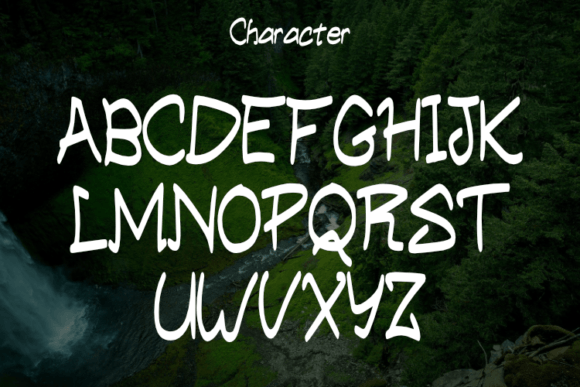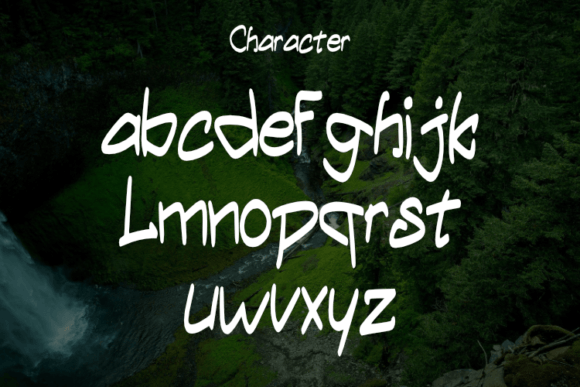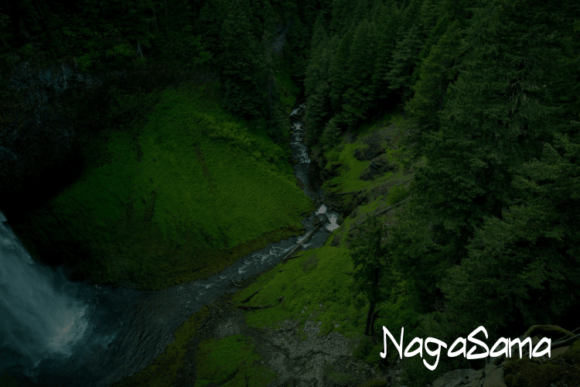
Introduction to Nagasama Font
Have you ever stumbled upon a design that sparks inspiration, making you want to create something just as beautiful? For many designers, that moment comes when they discover the perfect font to elevate their project. Today, we’re excited to introduce you to the Nagasama Font, a script typeface that will undoubtedly leave you in awe.
With its simple yet modern style, the Nagasama Font is the perfect addition to any high-quality design project. Whether you’re working on a luxurious logo, a book or movie title, or a fashion brand, this versatile font is sure to impress. Its elegant look makes it a valuable resource for designers seeking to create visually stunning designs with a transparent background.
Key Features of Nagasama Font
- High-quality design: Nagasama Font is a professional and elegant font suitable for various creative projects, such as logo design, branding, and typography.
- Transparent background: Nagasama Font features a transparent background, allowing for easy customization and flexibility in design applications.
- Medium line height: Nagasama Font has a medium line height, making it suitable for a wide range of design applications, from body text to headings.
- Resolution: The font is optimized for high-resolution displays, ensuring crisp and clear text rendering at resolutions up to 300 DPI.
Honest Review: Nagasama Font
I recently had the chance to work with the Nagasama Font for a creative project, and I must say, it’s been a great experience. This free download has become one of my go-to design resources.
- ✨ The Nagasama Font has a unique, high-quality design that makes it perfect for various creative projects.
- ✨ The font’s transparent background makes it easy to layer and customize, giving me a lot of flexibility in my design work.
- ✨ The font is highly legible, making it easy to read even at smaller sizes.
While the Nagasama Font has been a great addition to my design toolkit, there are a few limitations to consider:
- ⚠️ The font may not be as suitable for very formal or traditional designs, as it has a more modern and playful feel.
Overall, I’m really impressed with the Nagasama Font and would highly recommend it to anyone looking for a high-quality, free design resource.
Tips for Getting the Most Out of Nagasama Font
To get the most out of the Nagasama Font, use it in conjunction with a transparent background to create a high-quality design resource. You can also experiment with different font sizes and styles to create a unique look for your creative project.
The Nagasama Font is ideal for use in logos, branding materials, and other design elements where a high-quality, free download font is needed. Its versatility makes it a great resource for designers working on a wide range of creative projects.